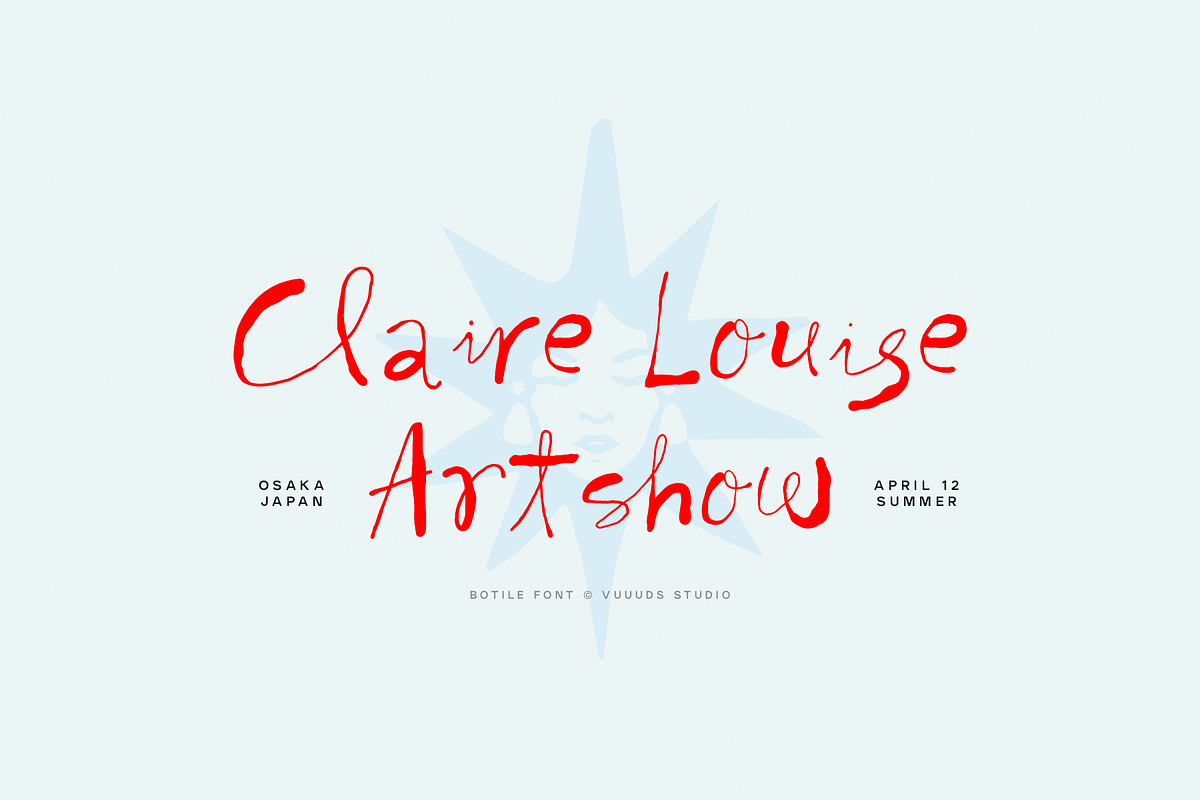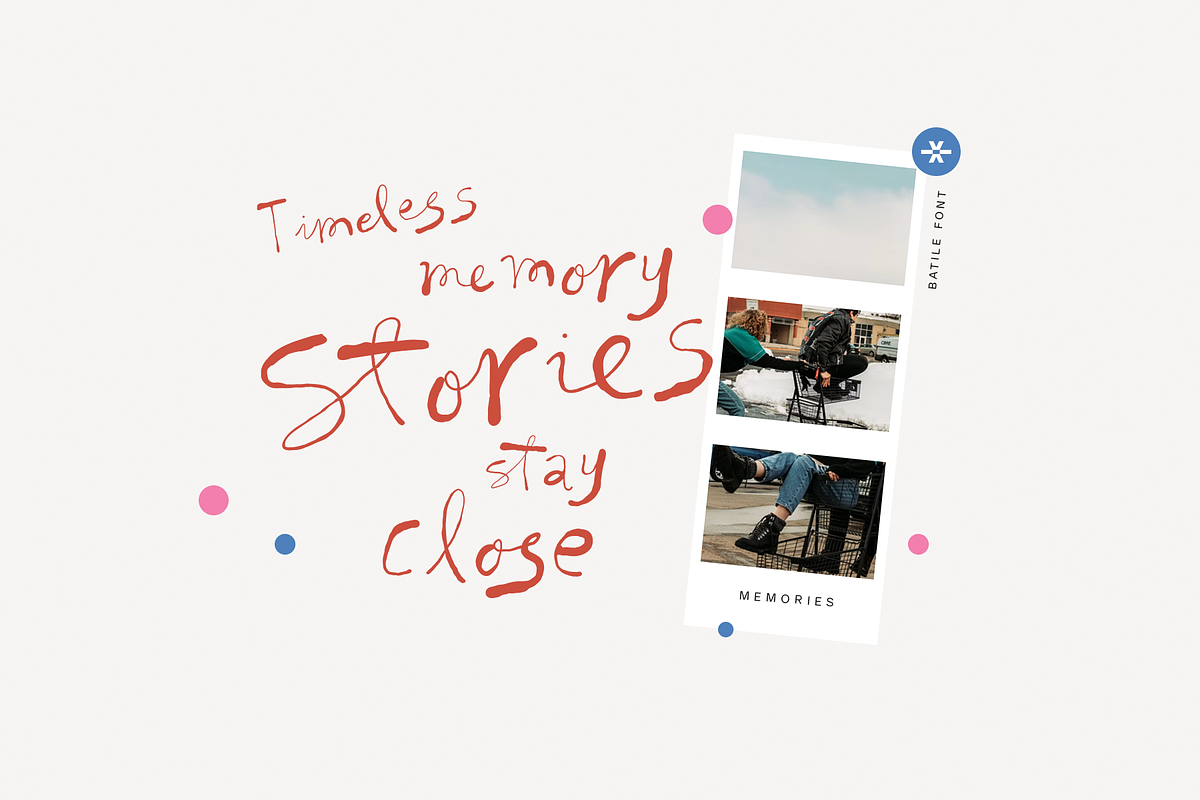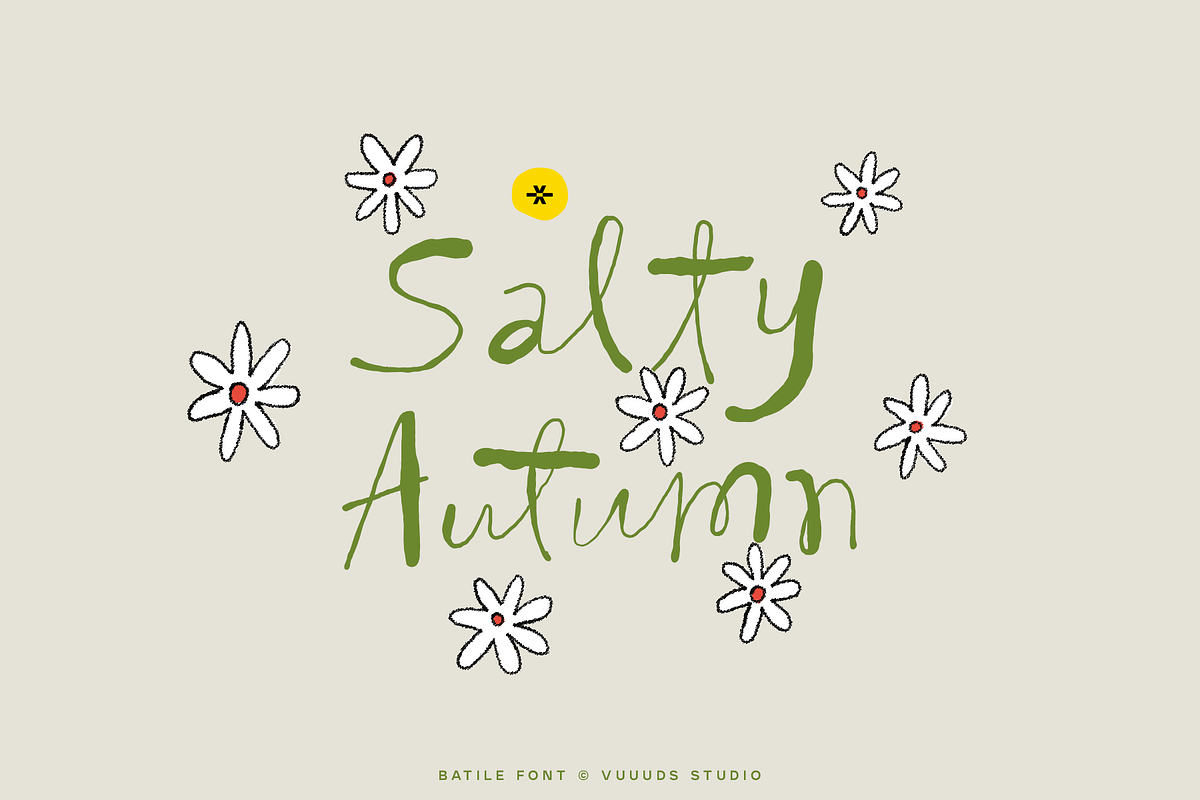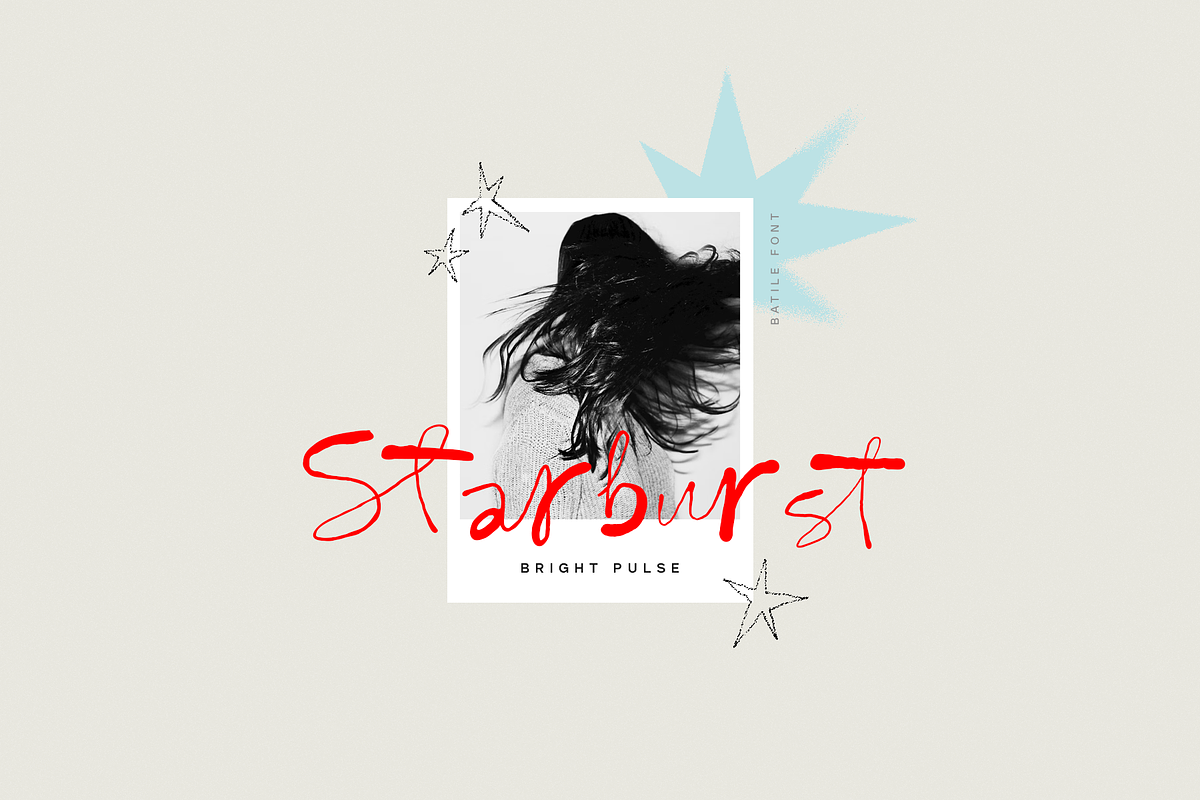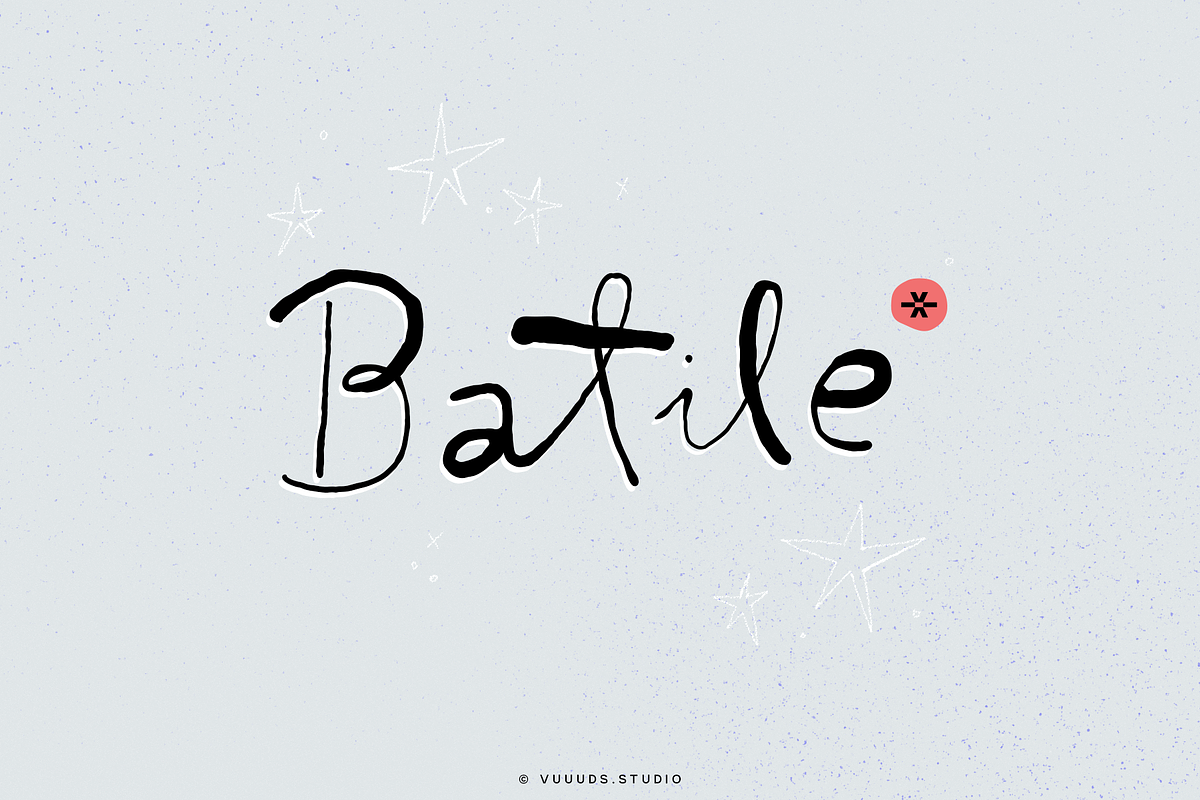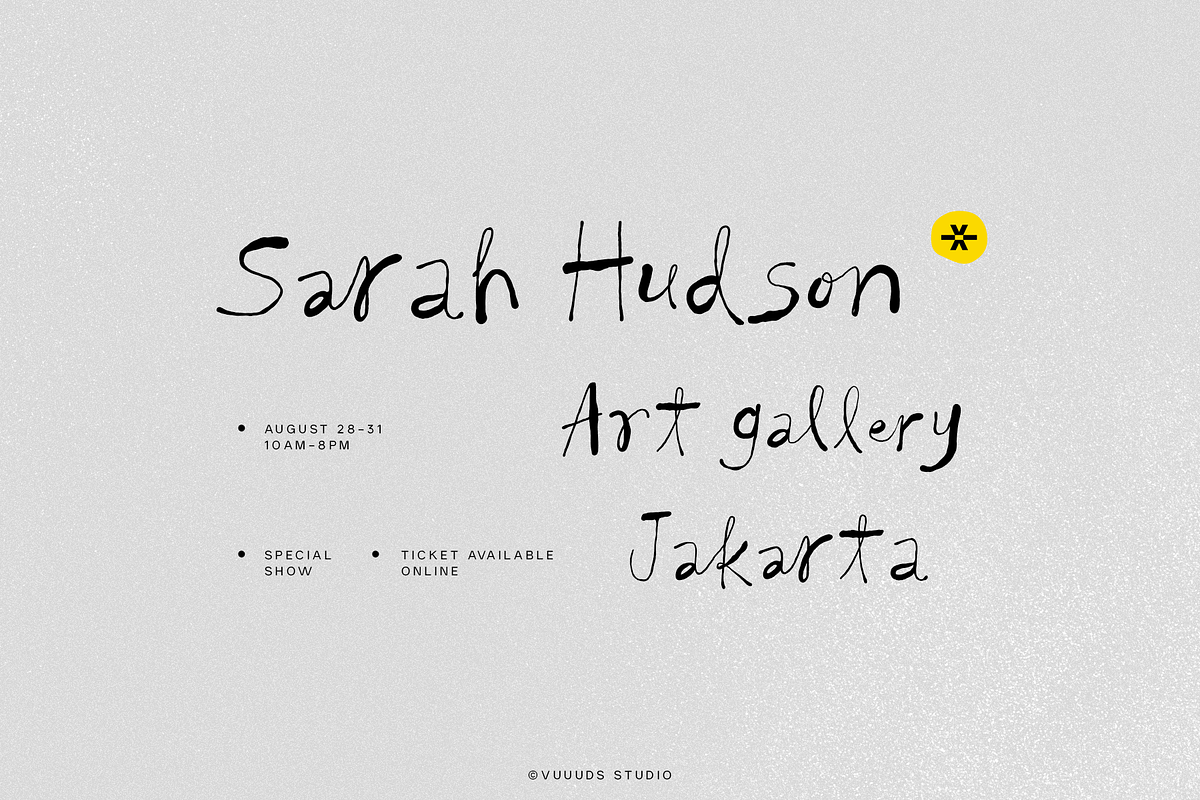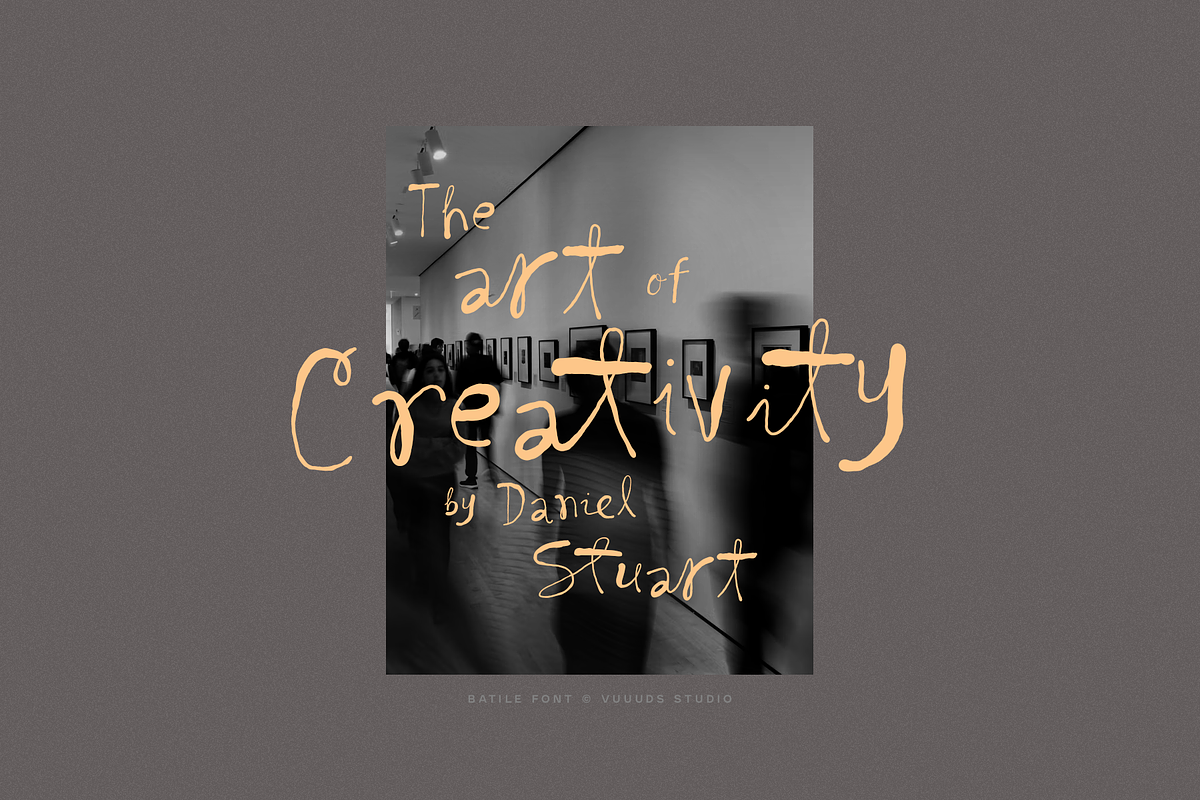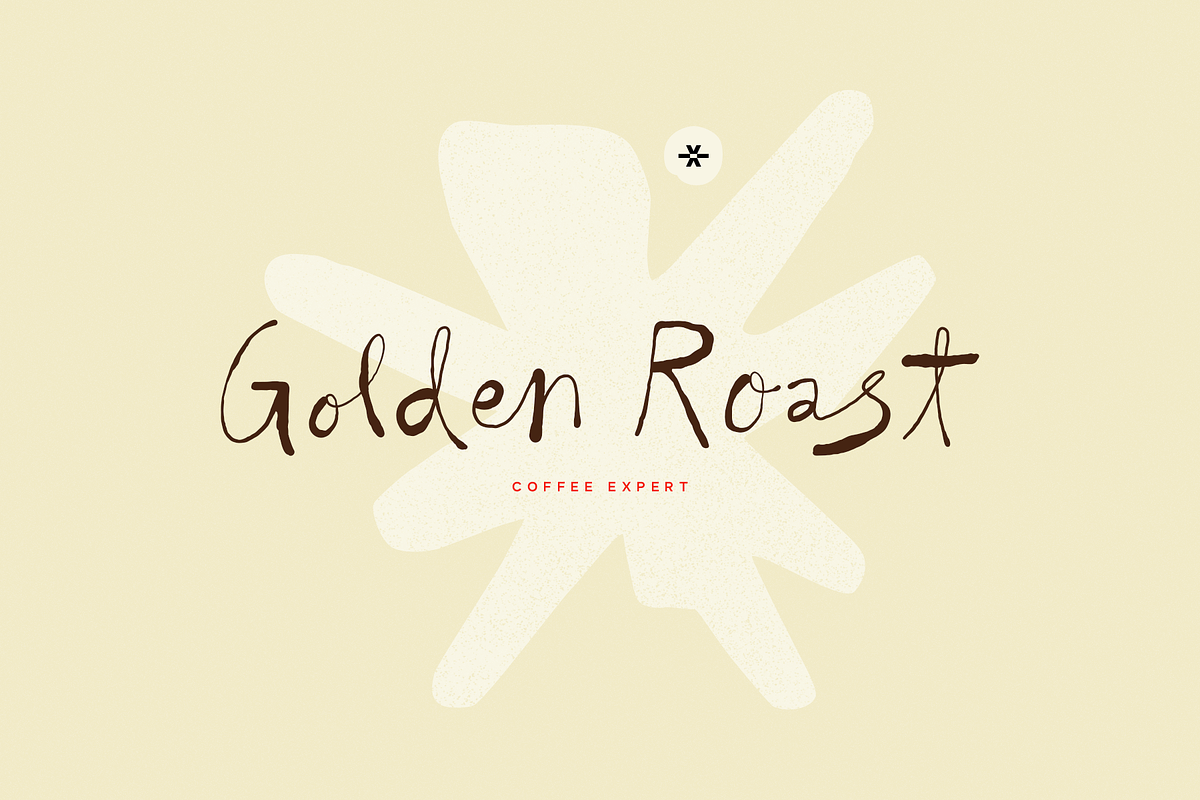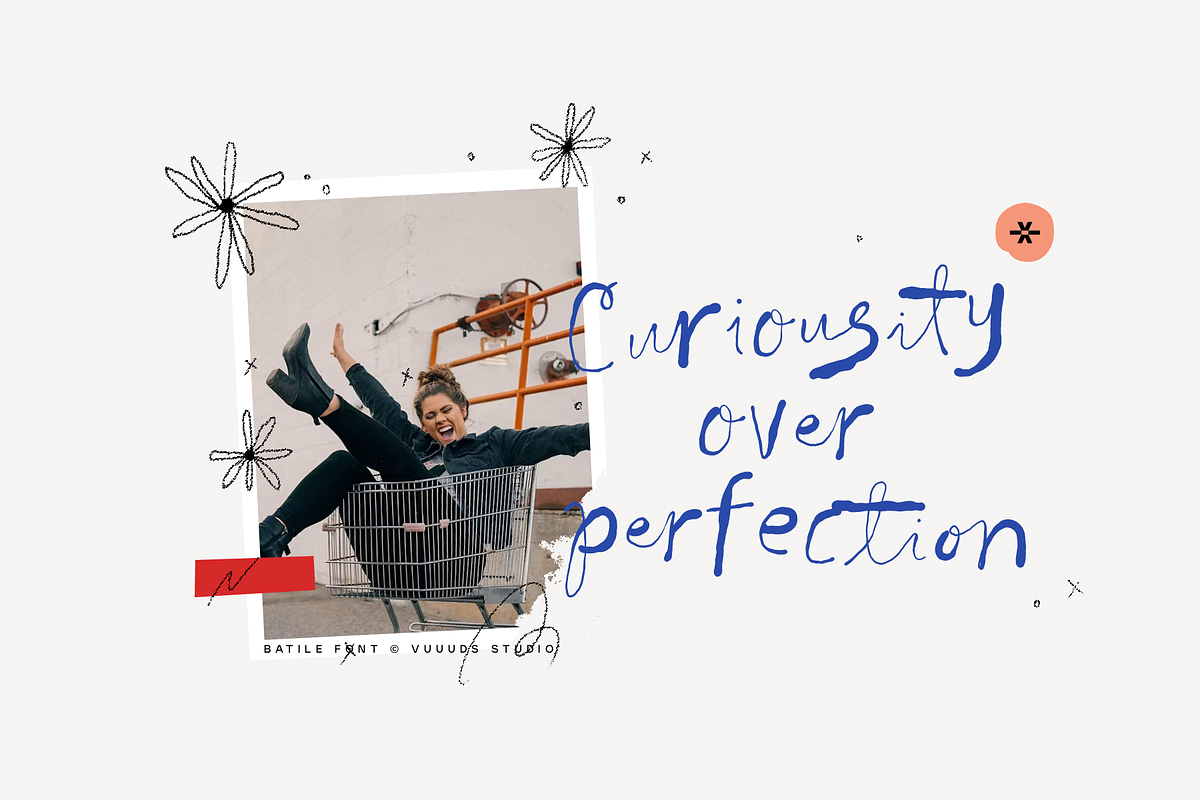
Batile
Batile is your next go-to brush script font, delivering an unexpected and unique personality with its variable thick and thin strokes in every character. It’s absolutely perfect for creating energetic posters, casual cafe branding, punchy logos, and vibrant flyers that immediately grab attention.